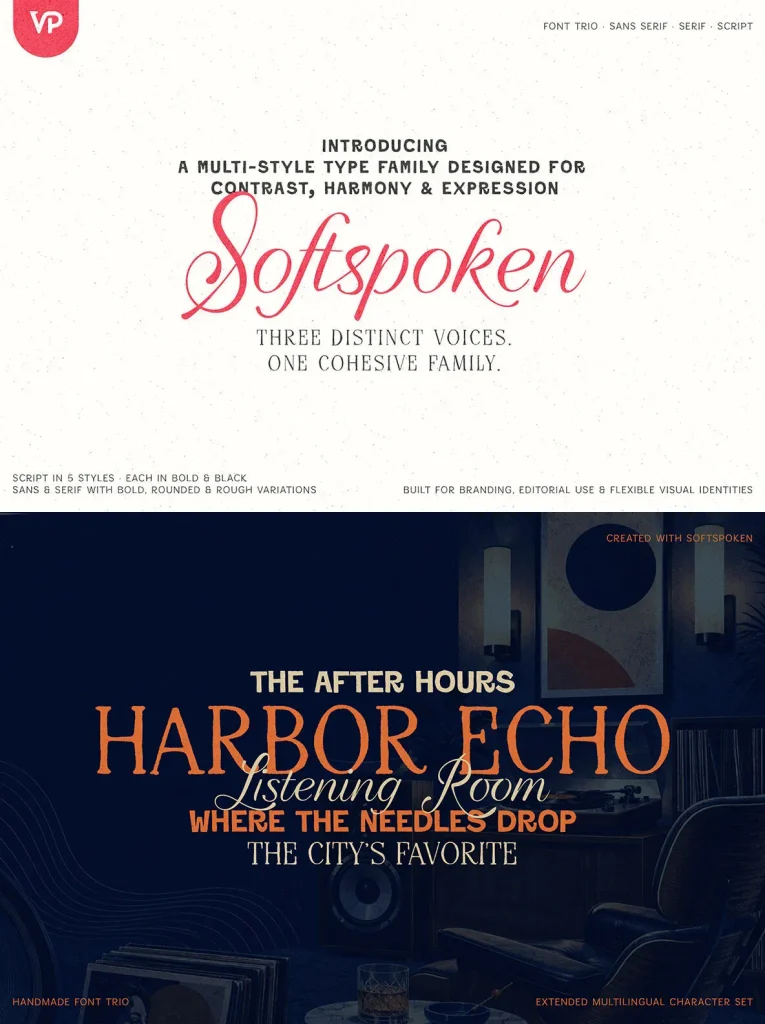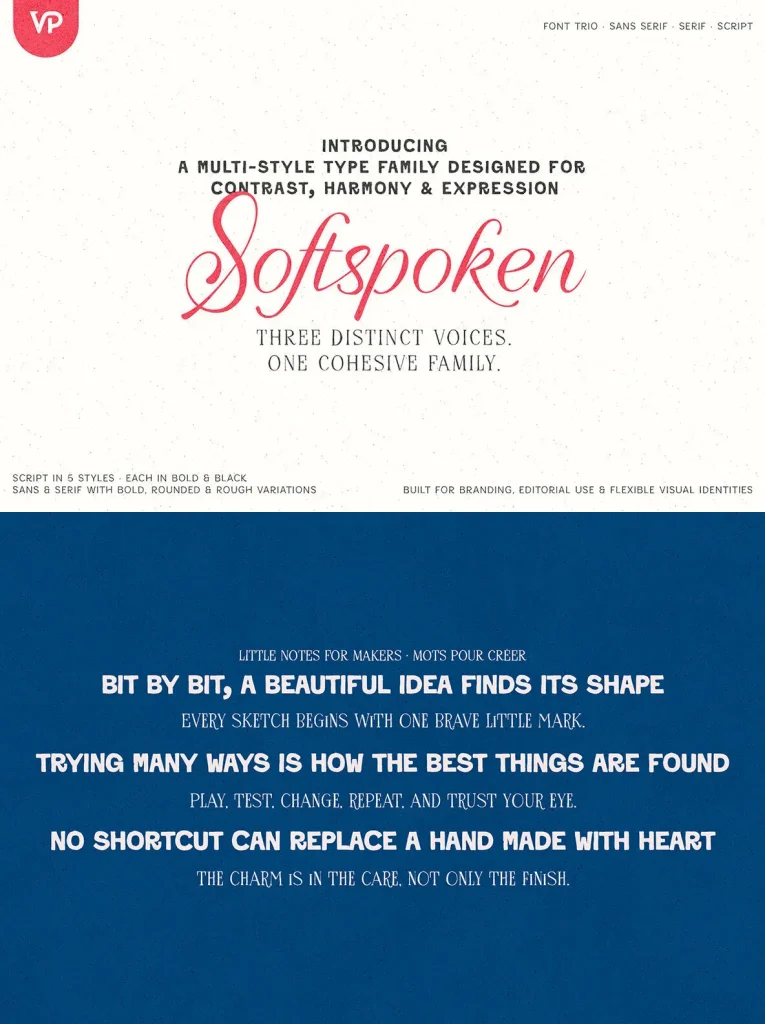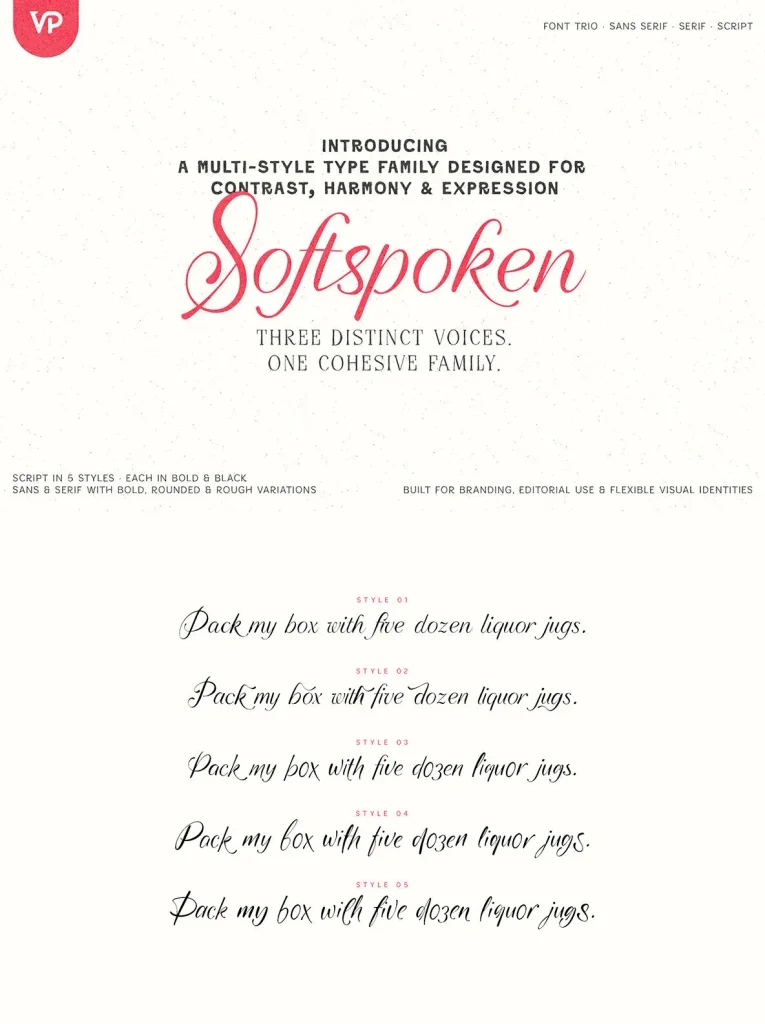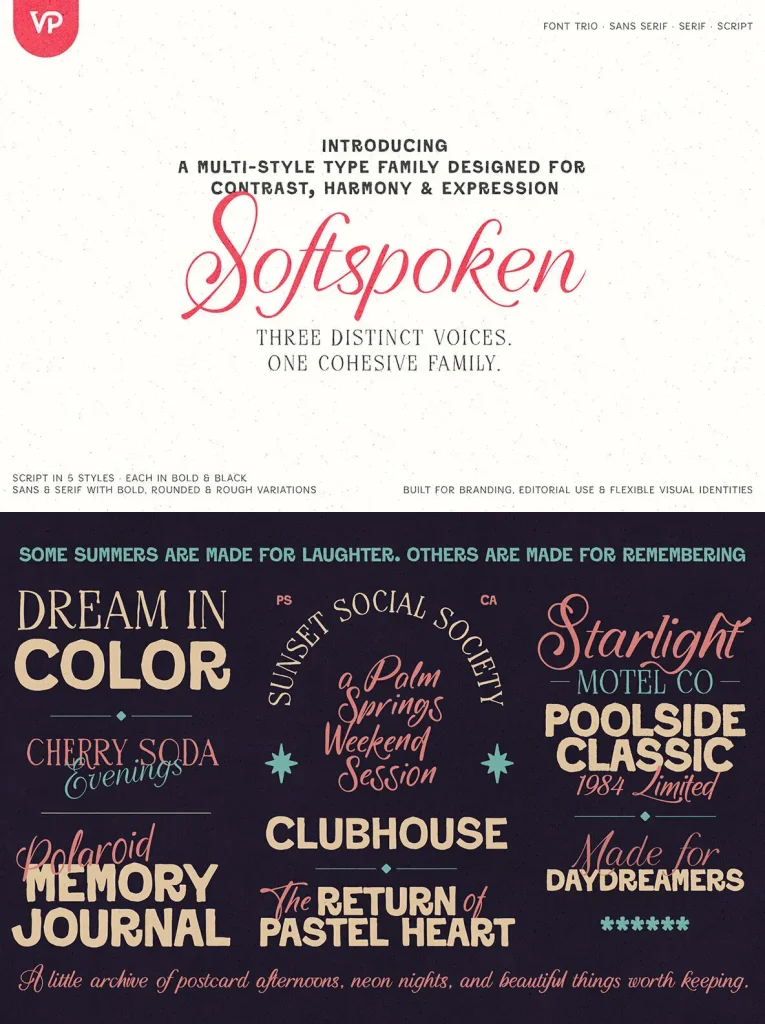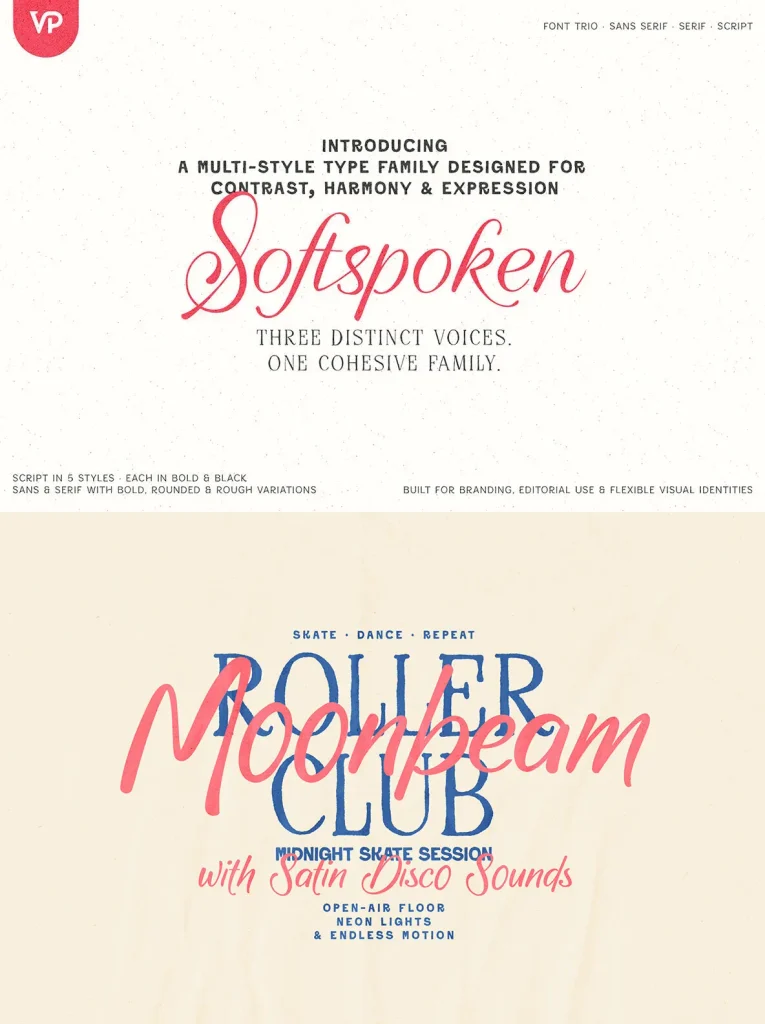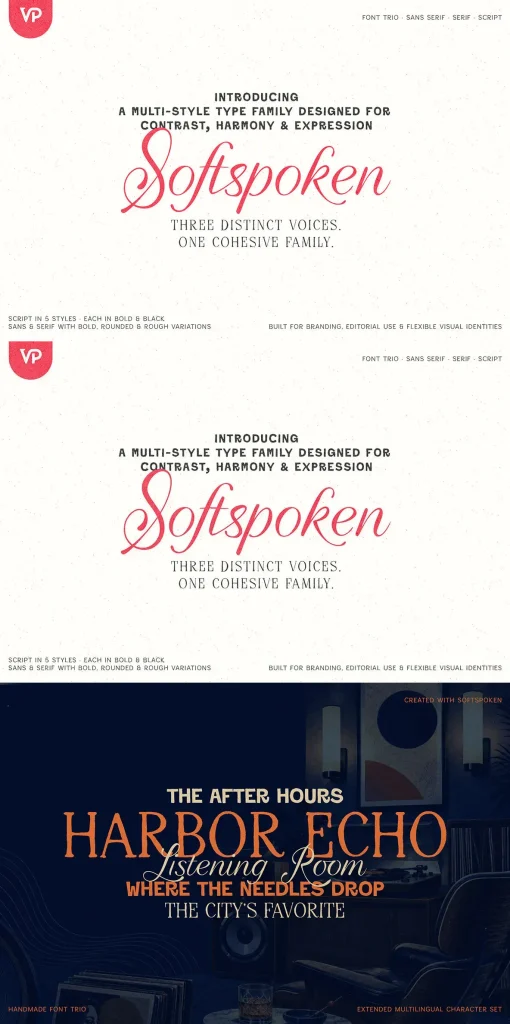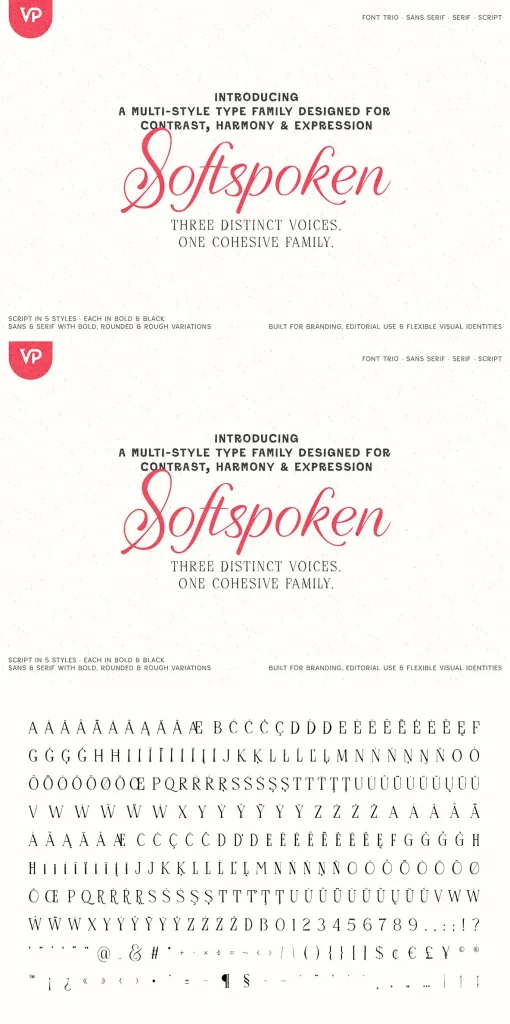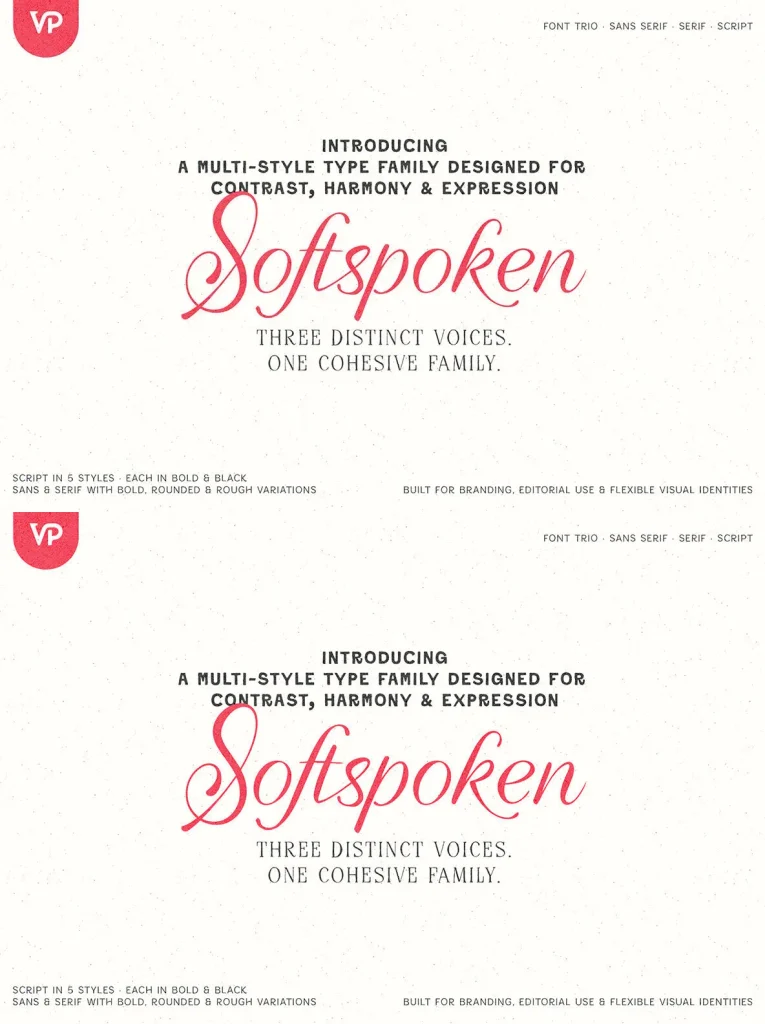
Softspoken — Contrast with a Gentle Voice
Softspoken is a versatile serif, sans serif and script font trio created for branding, logos, packaging, editorial design, invitations, social media and memorable display typography. It gives designers three coordinated voices in one family: a clean sans serif, an expressive serif and a flowing script. Use them together for layered visual systems, or independently when a project calls for a more focused typographic tone.
The script family includes five distinctive styles, with every style available in Regular, Bold and Black. The coordinated serif and sans serif families include Regular, Bold, Rounded and Rough variations, ranging from refined elegance to playful handmade character. Softspoken also includes an extended multilingual character set, numerals, punctuation, symbols and expressive stylistic details for flexible professional use across print and digital design.
Perfect For
Brand identities
Logo design
Packaging
Editorial layouts
Wedding invitations
Restaurant menus
Beauty brands
Fashion projects
Posters
Social media
Stationery
Product labels